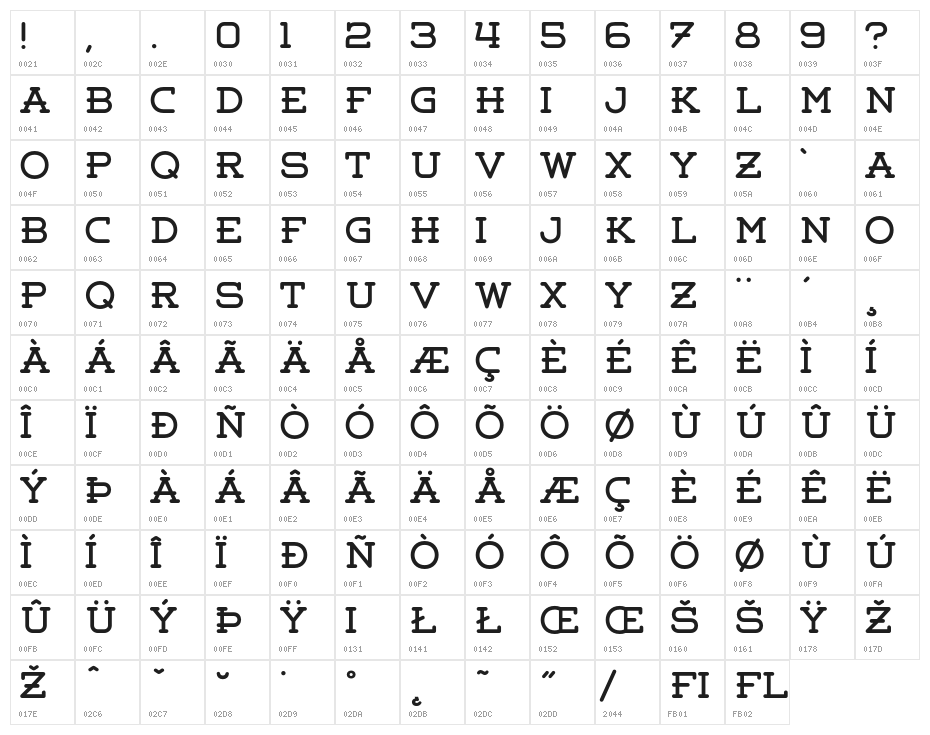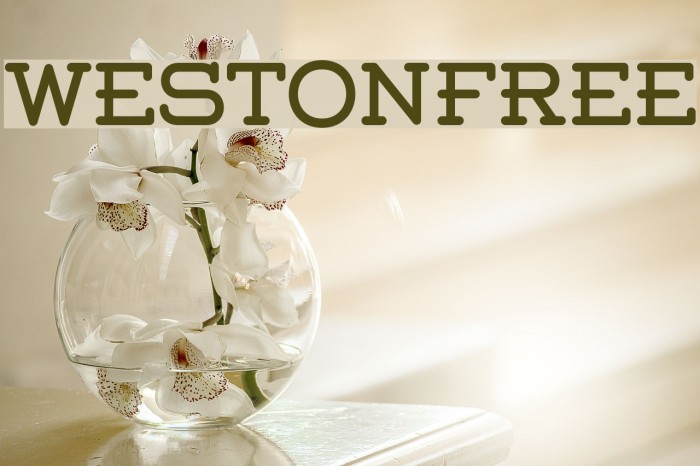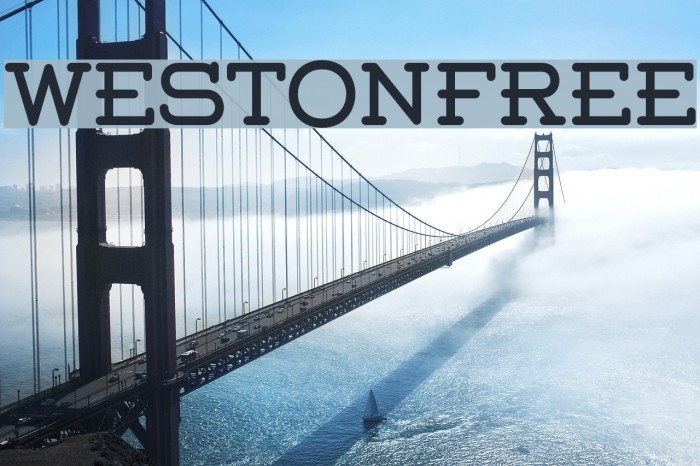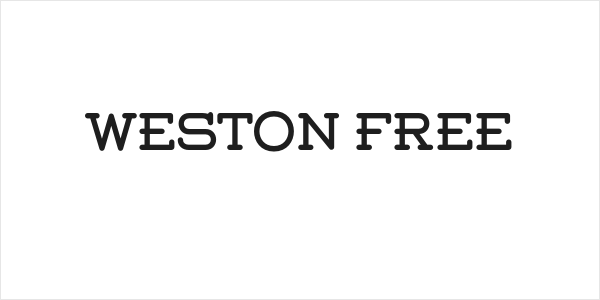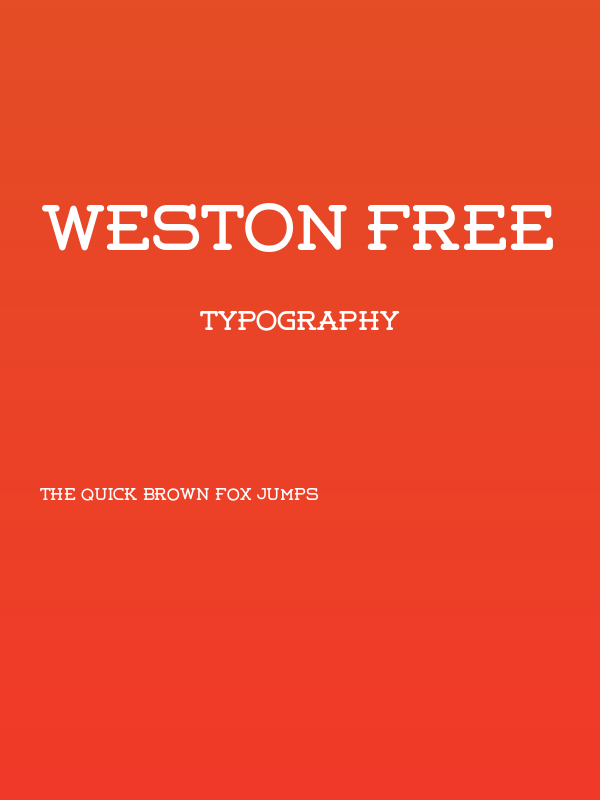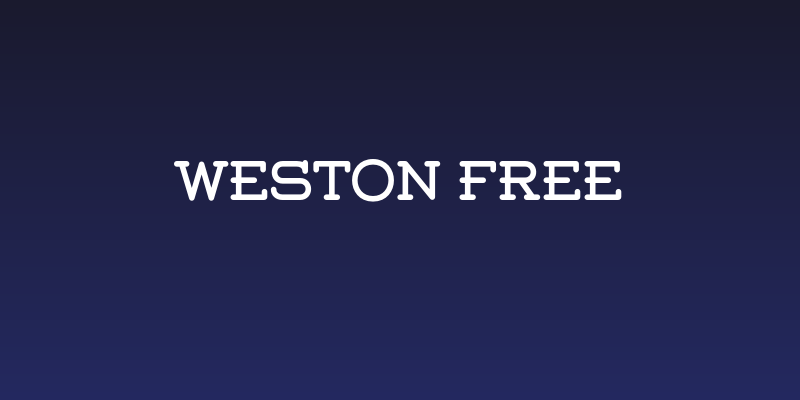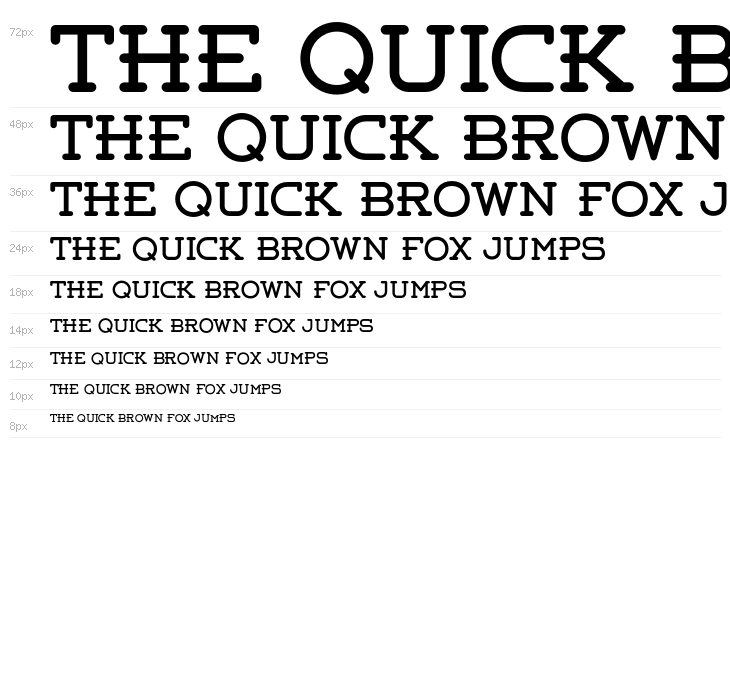
Weston-Free Font
Weston-Free Description
This font features a distinctive, modern design with rounded edges and a geometric structure. The uppercase letters are bold and uniform, providing a strong visual impact. The numbers are equally bold, maintaining the same rounded style, which adds to the font's cohesive appearance. The special characters are designed to match the overall aesthetic, ensuring consistency across all glyphs. The font's clean lines and contemporary feel make it suitable for a variety of design applications.
Use CaseHeadlines, Logos, Branding
Proposed ProjectsIdeal for branding, advertising, digital media, and modern web design projects.